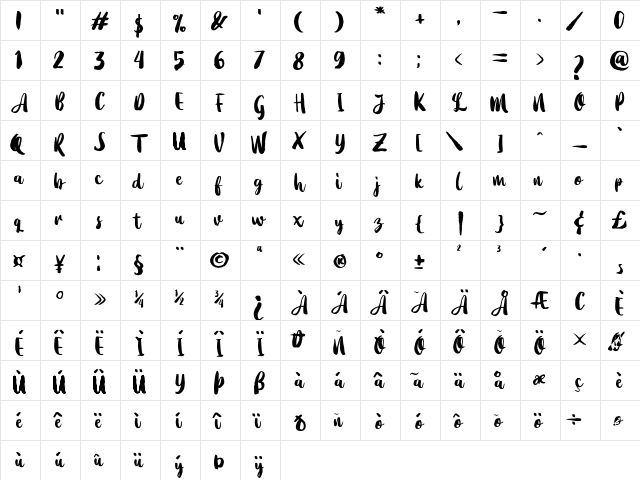
Dearday Script Regular
| Foundry | Letterhend Studio |
| Designer | Letterhend Studio |
Design Context for Dearday Script Typeface
Dearday Script flows with the natural rhythm of handwritten lettering, making it ideal for designs that call for warmth and personal expression.
Font Pairing: Combine Dearday Script with a simple geometric sans for maximum contrast — the tension between flowing curves and clean structure is a classic typographic pairing.
Pro Tip: Use Dearday Script for short runs of text — names, titles, or taglines. Extended body copy in script faces tires the eye quickly.